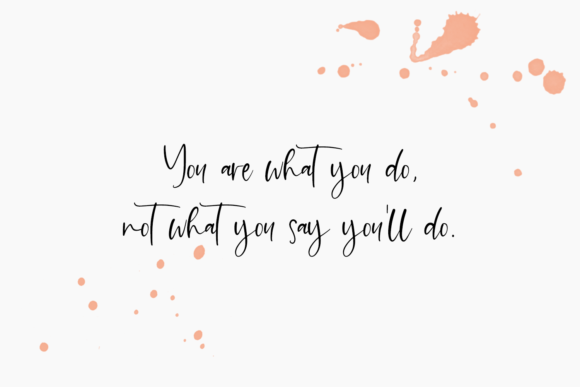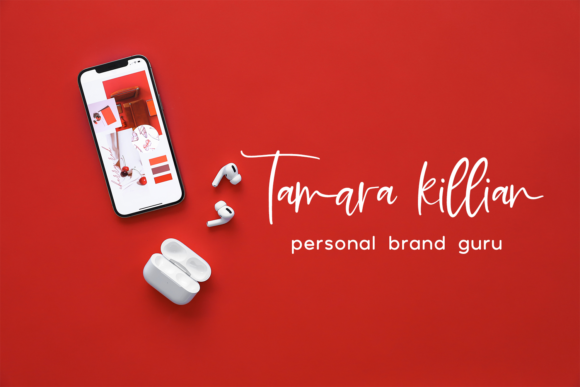
Honeycrisp Font
db-ku.com - Script & Handwritten -- Honeycrisp is a stylish script font. Its natural and unique style makes it incredibly fitting to a large pool of designs. The only limit is your imagination!